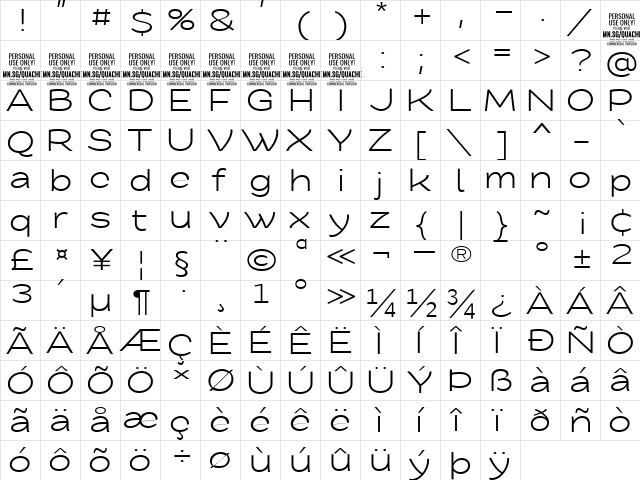
Quache Regular Extra Expanded
| Foundry | Mans Greback |
| Designer | Mans Greback |
Design Context for Quache Typeface
Quache offers clean, dependable letterforms without strong stylistic allegiance, making it a practical choice for designers who need flexibility.